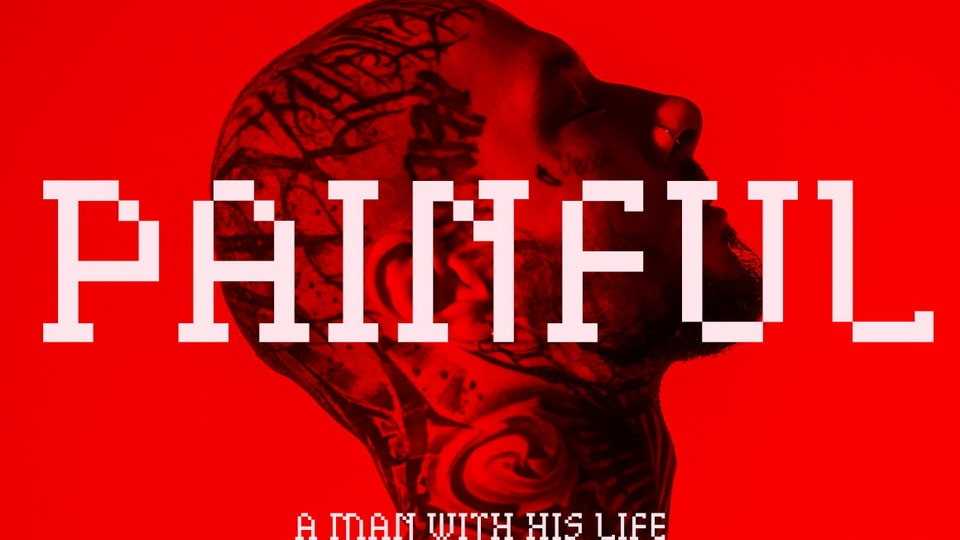
Download Groutpix Flow Slab Serif font, a unique fusion of retro pixel art and classic slab serif design constructed with a grid-based, pixelated structure.